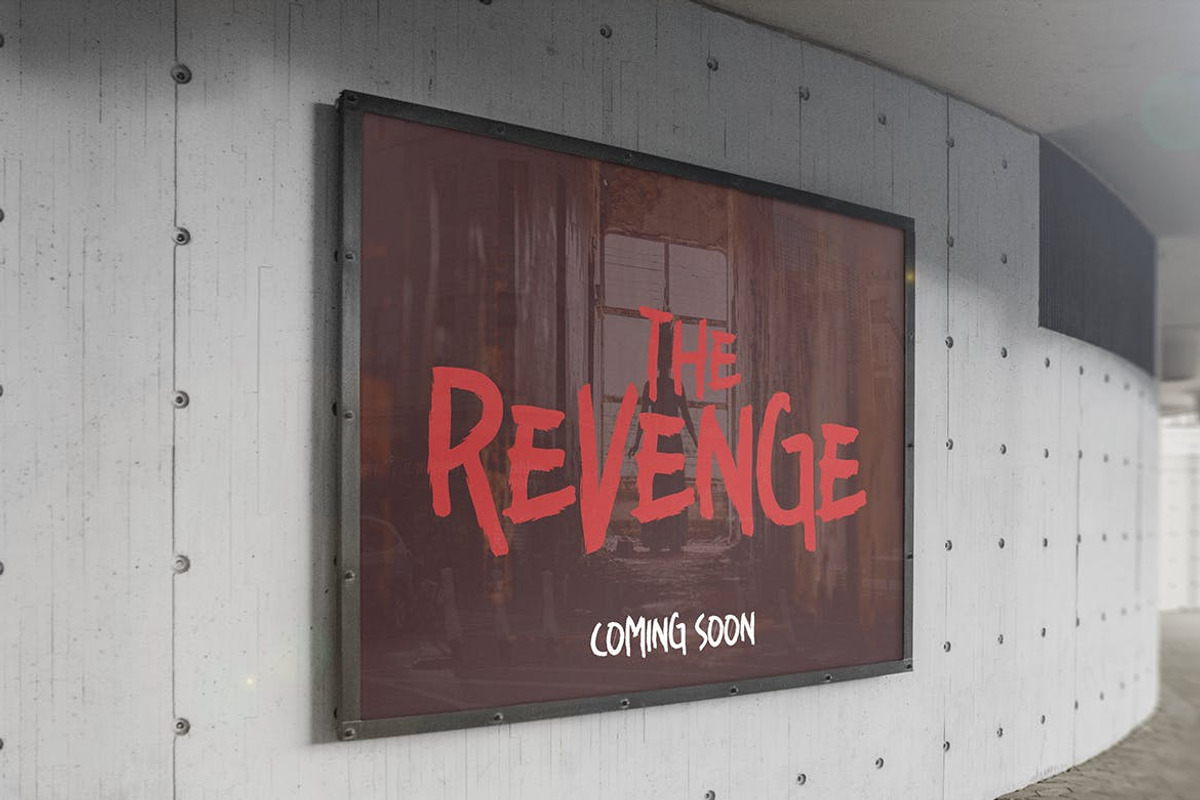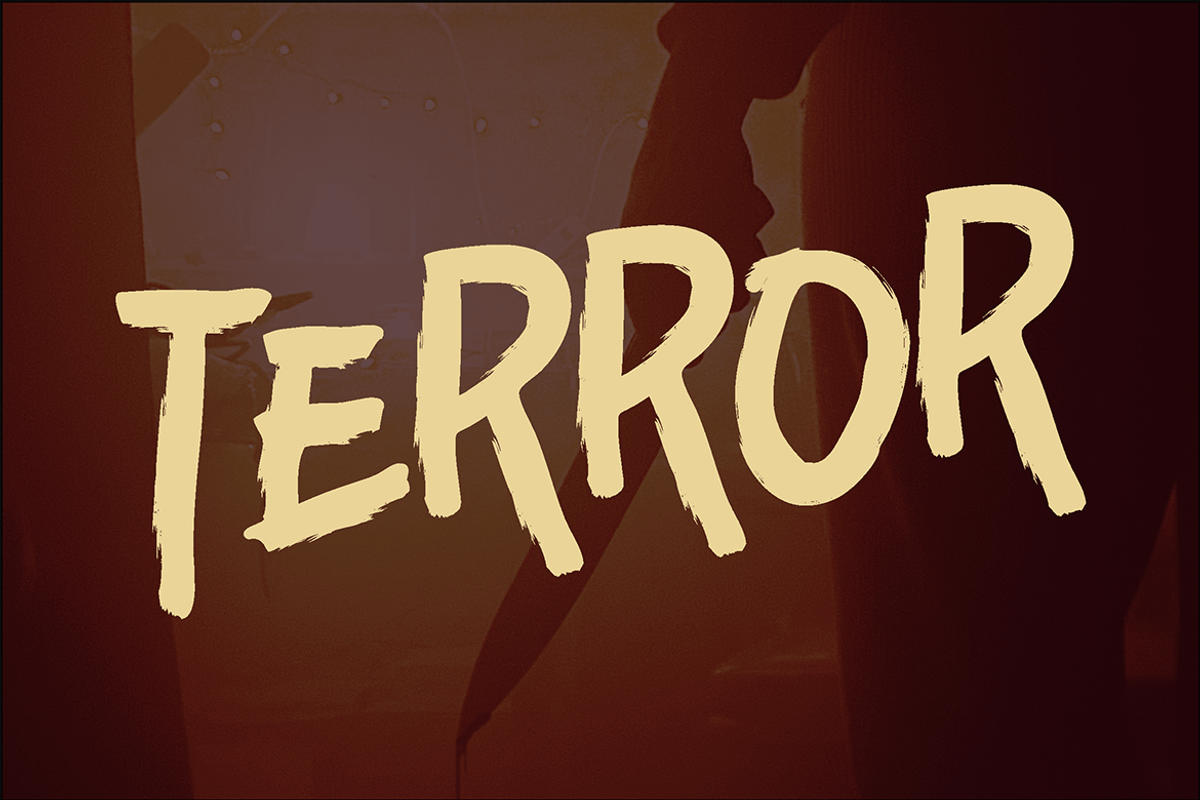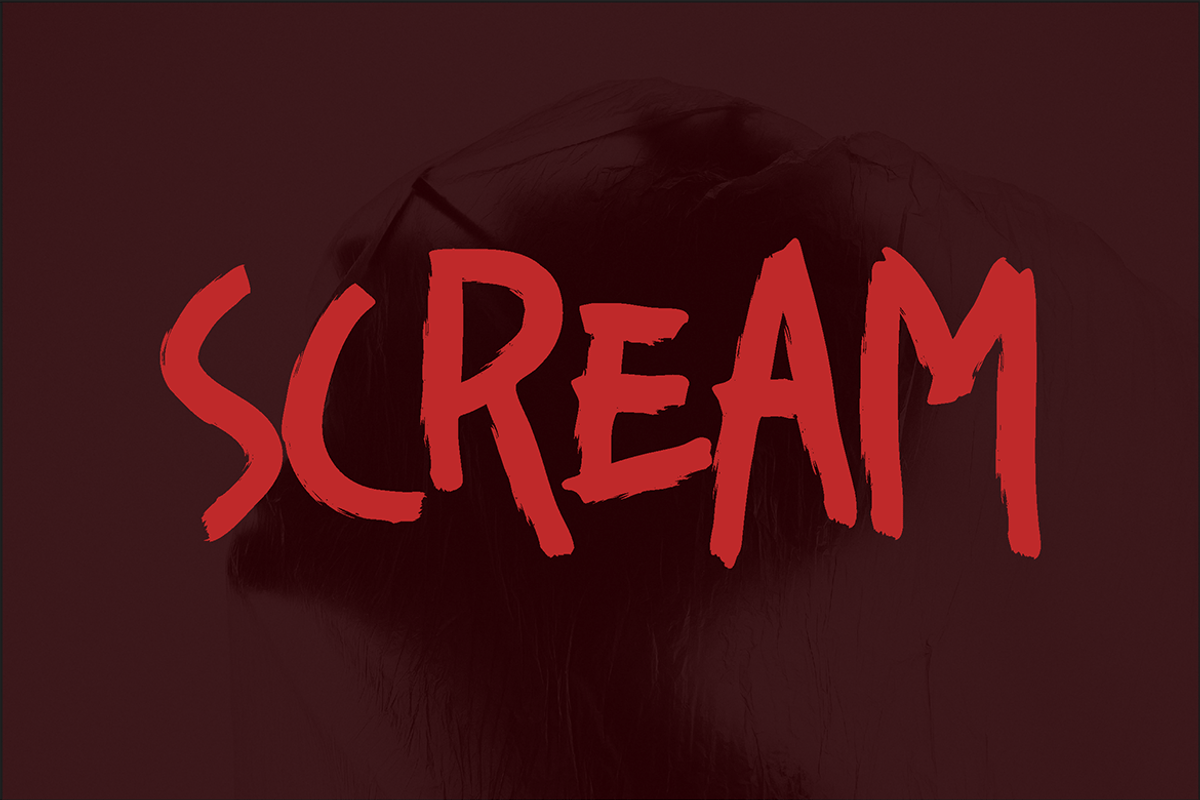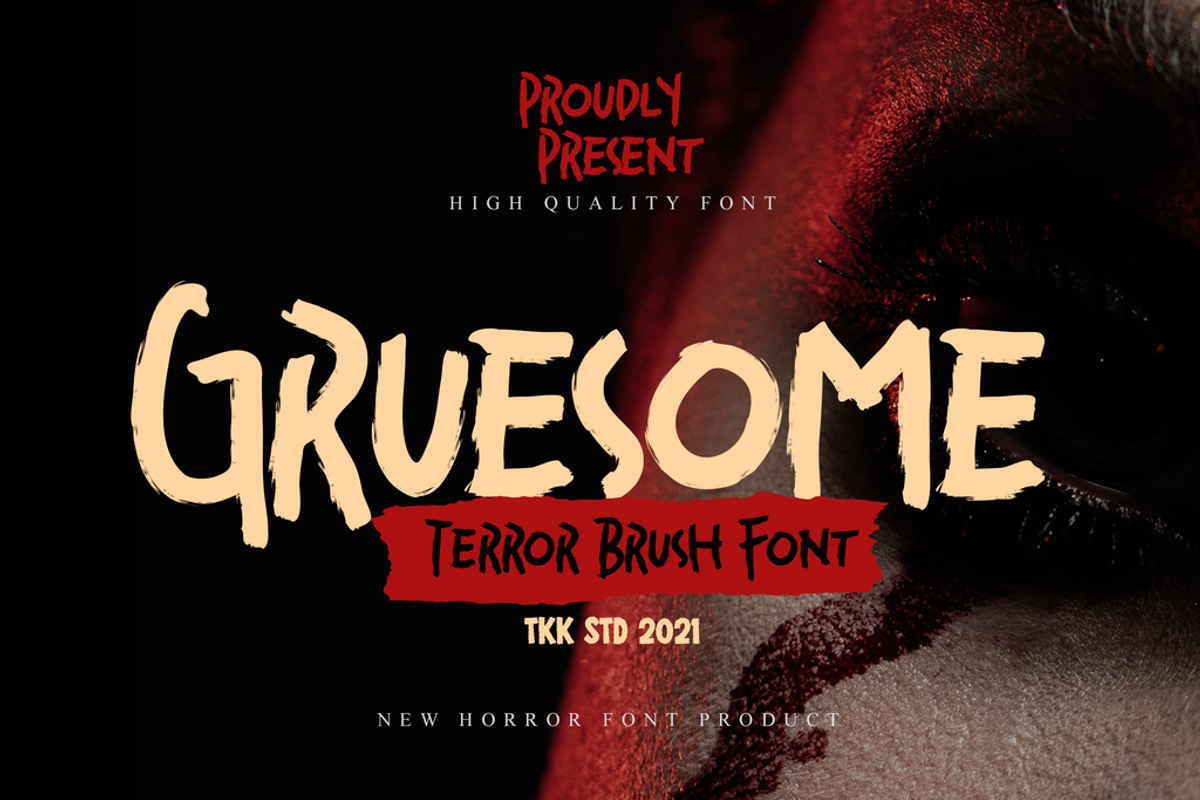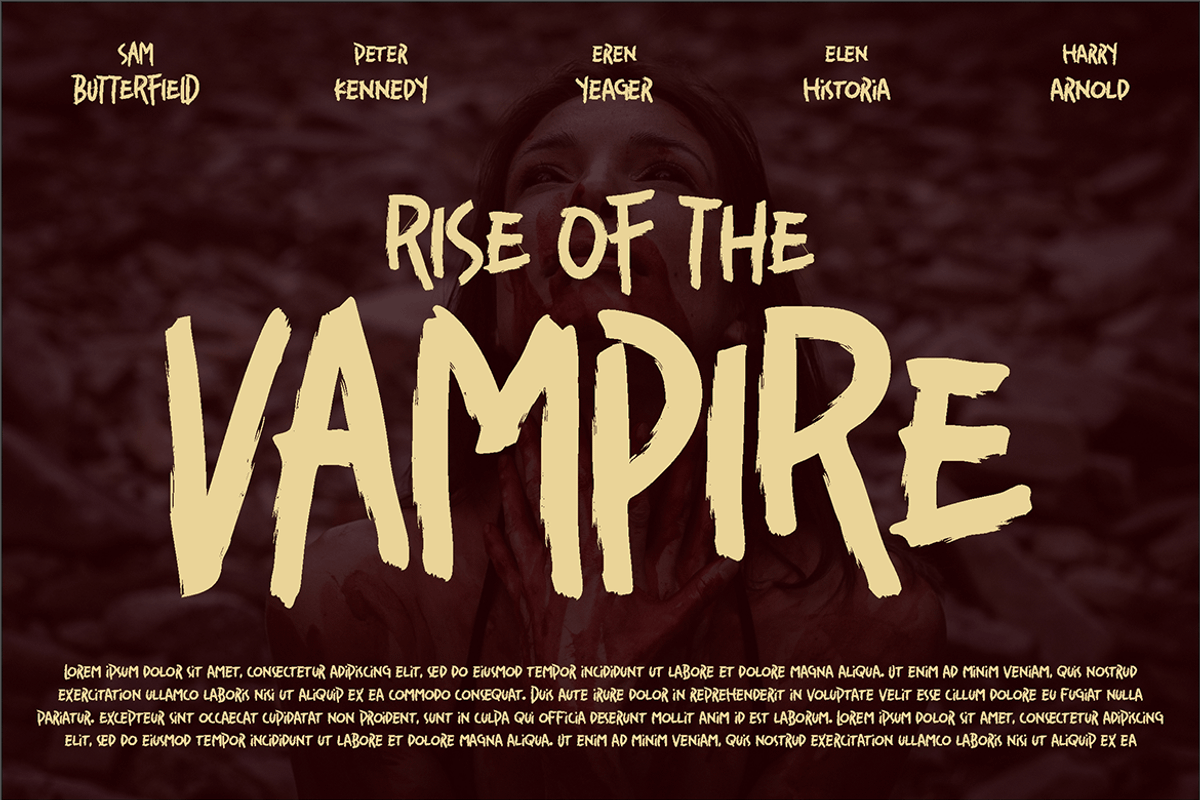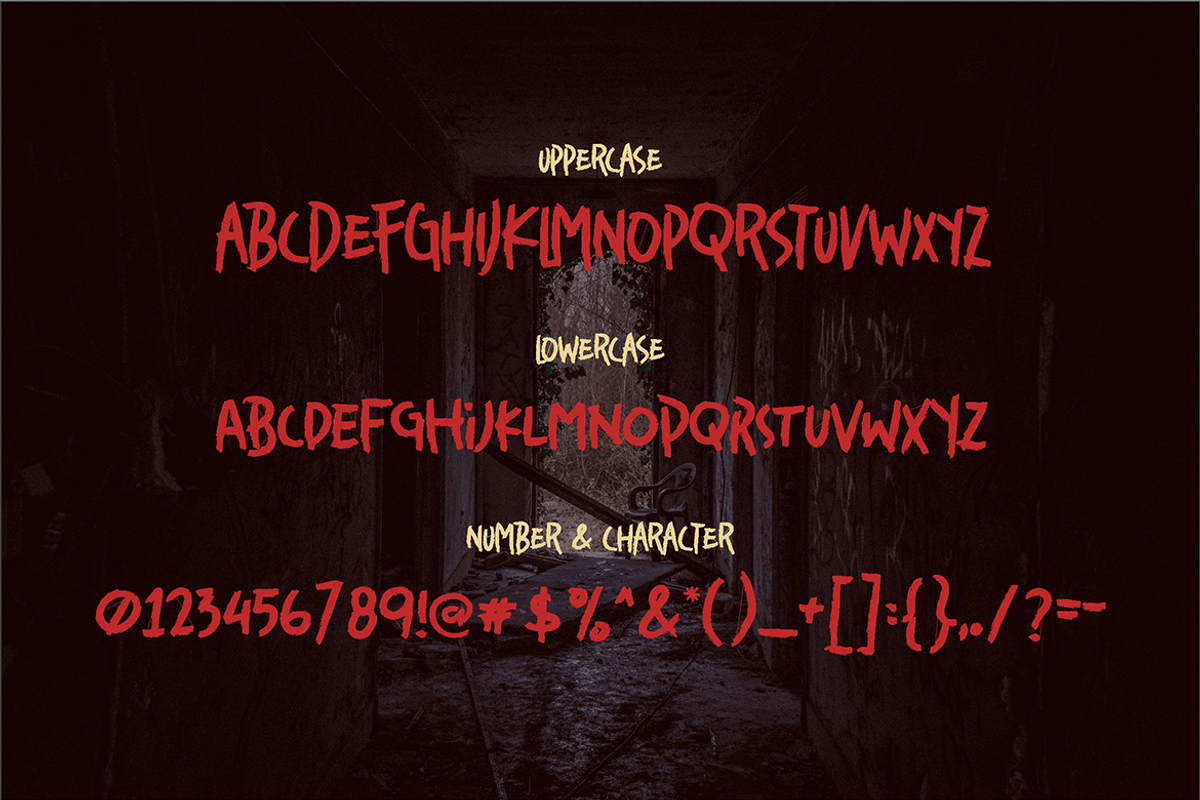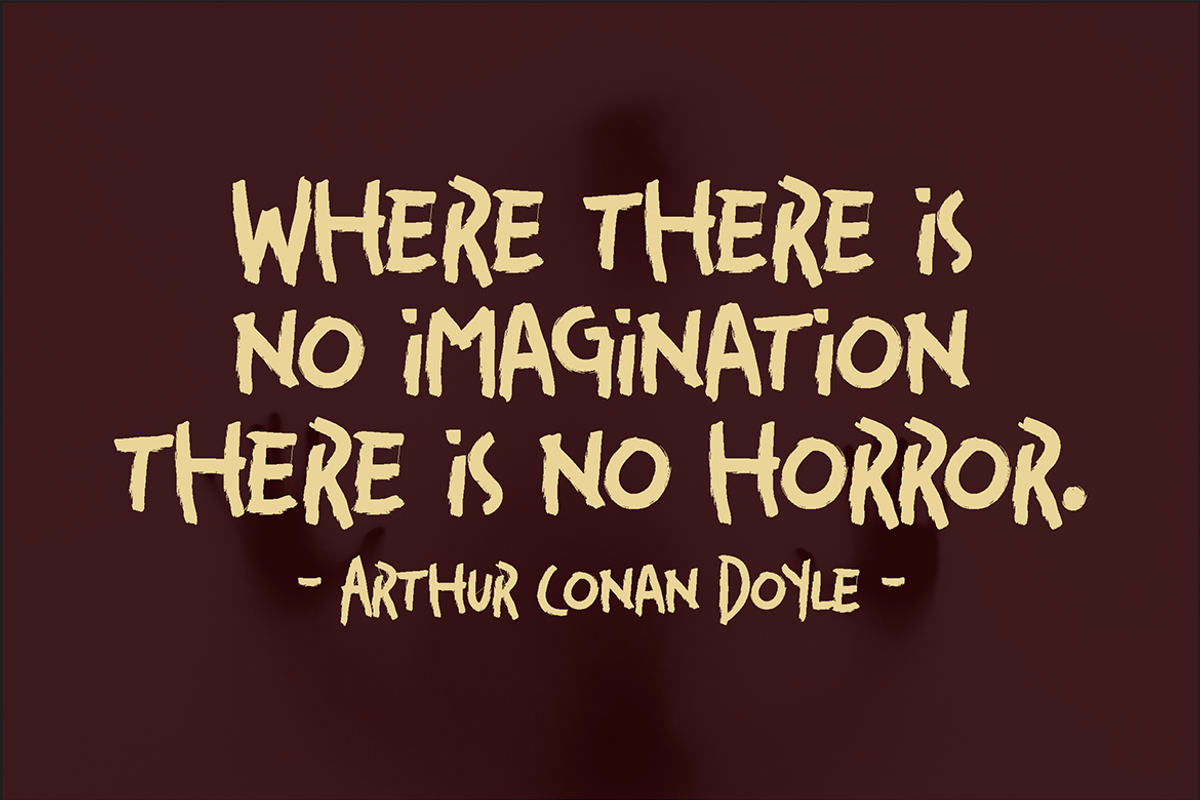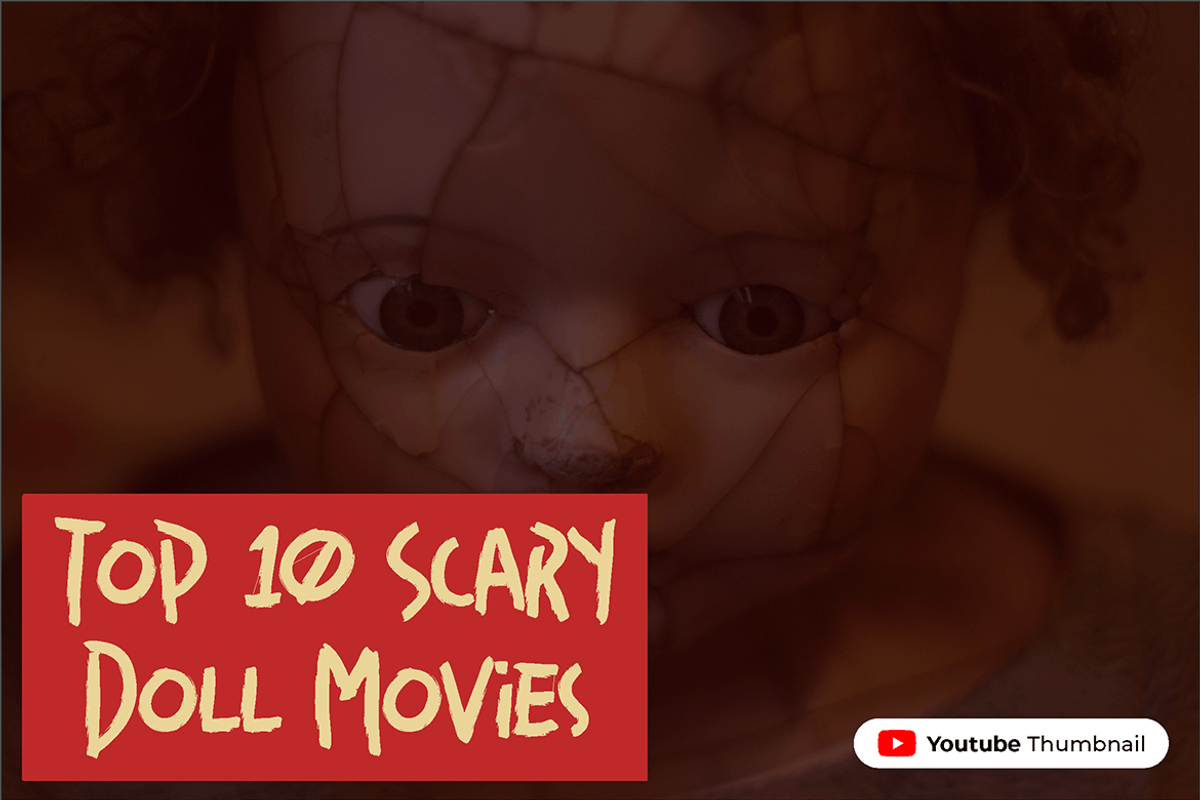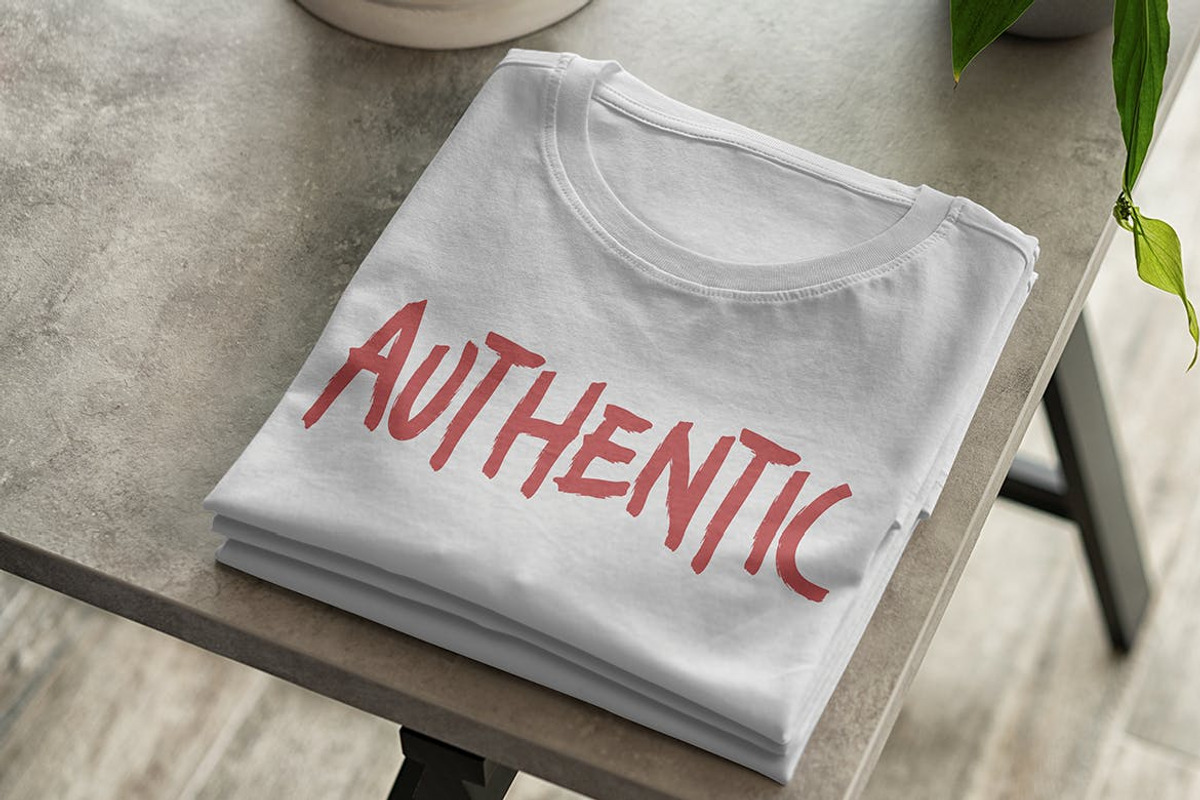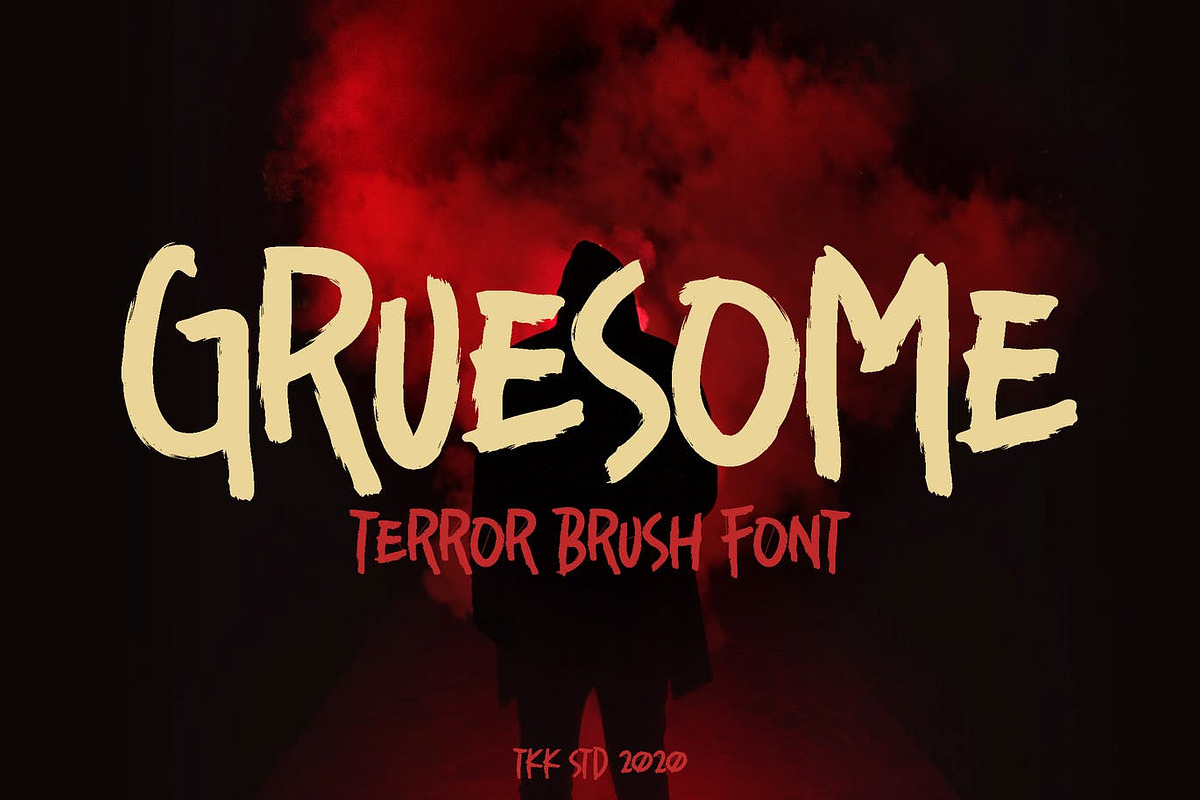
Gruesome - Horror Font
GRUESOME horror font just like its name, Gruesome creates terror in everything it is written. The rough and jagged brush texture, emphasize the scream of the scared audiences.
Suit perfectly for Spooky and Scary Halloween games, poster, movie title, fast food menu, magazine, youtube covers, youtube thumbnails, social media page covers and so on...